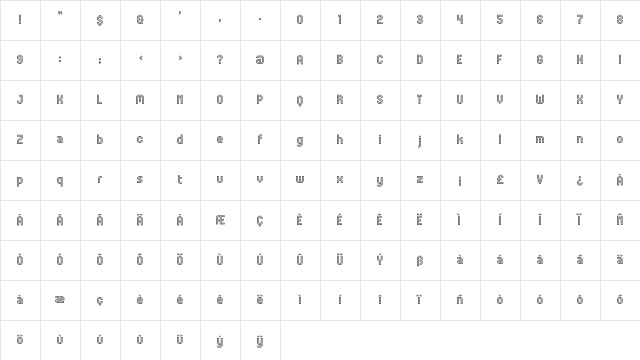
JD Digital Regular Free Font
JD Digital Regular
Designer: Jecko Development
Design Context for JD Digital
JD Digital has a distinctly futuristic character, with geometric precision and clean angles that feel at home in technology, gaming, and sci-fi contexts.
Pro Tip: Try JD Digital with generous letter-spacing in UI labels and navigation - the geometric forms benefit from room to breathe.